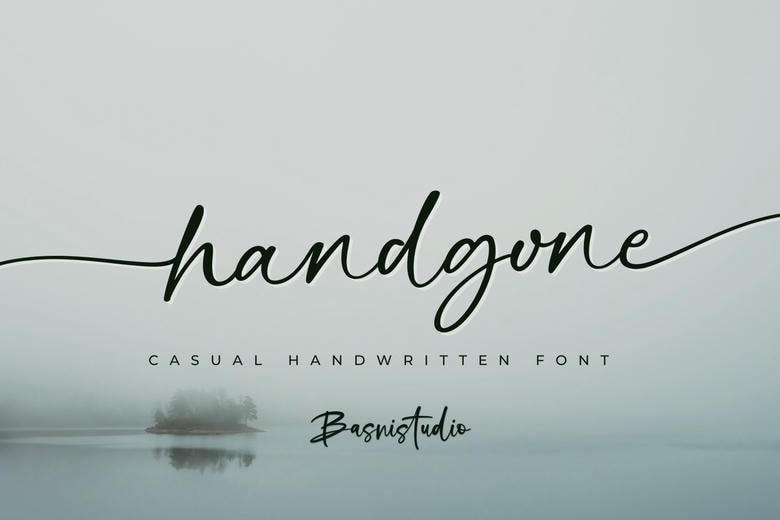
Handgone Font
Handgone is a handwritten typeface that is beautiful and gives a touch of nature and at the same time a personal touch to the branding, social media, invitations and packaging among others.
Handgone Handwritten Script Font